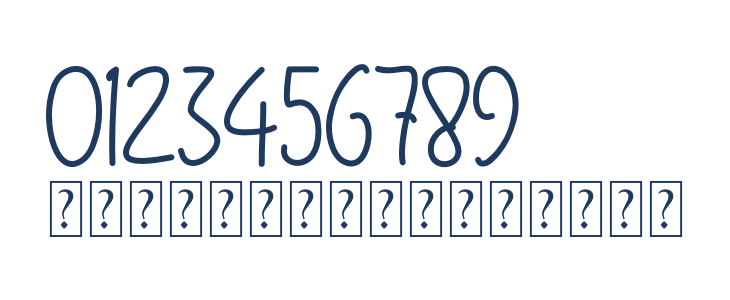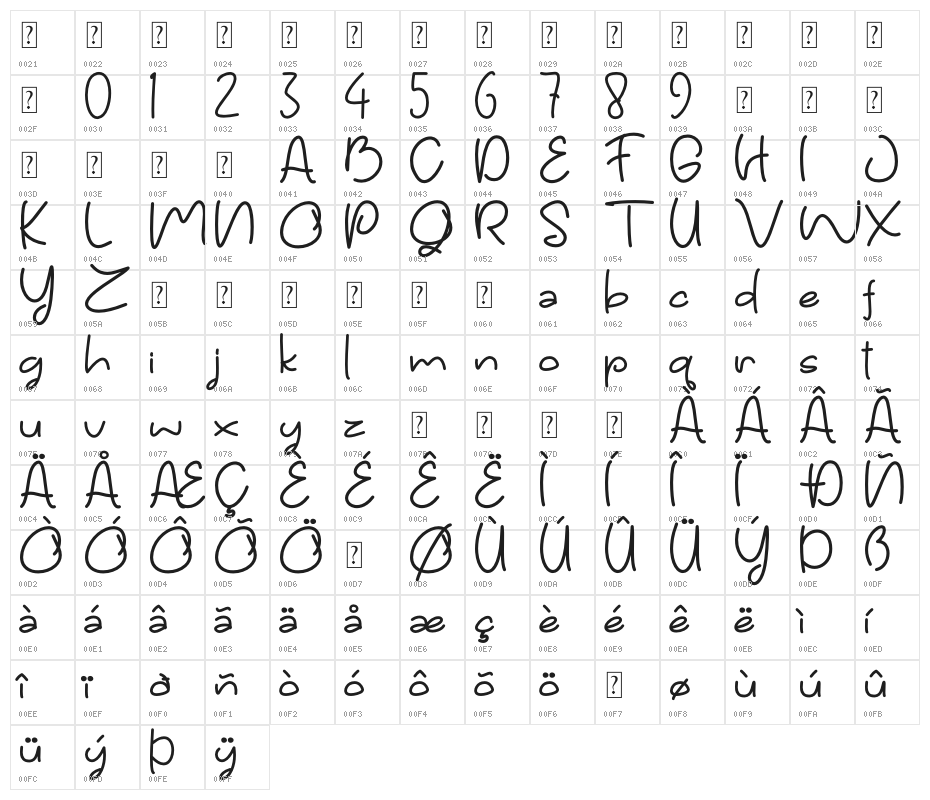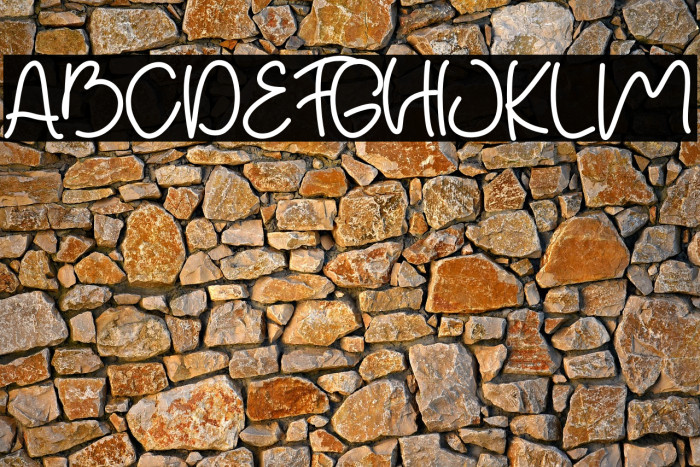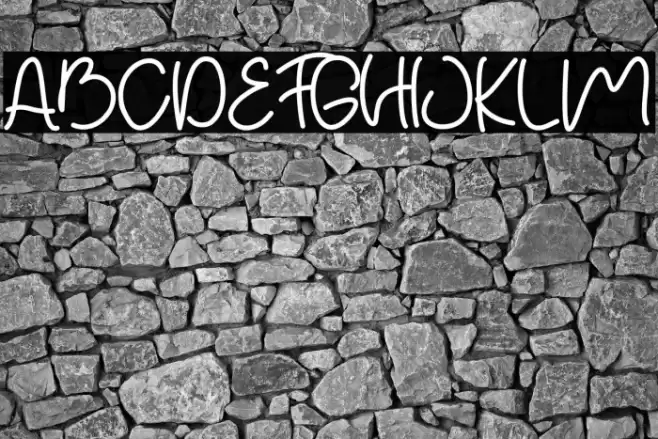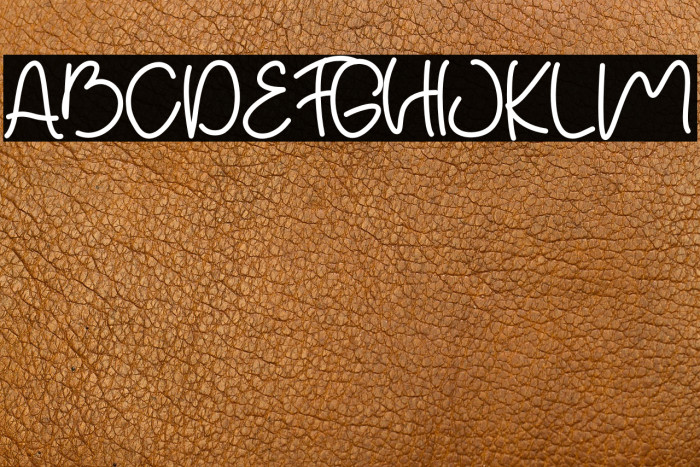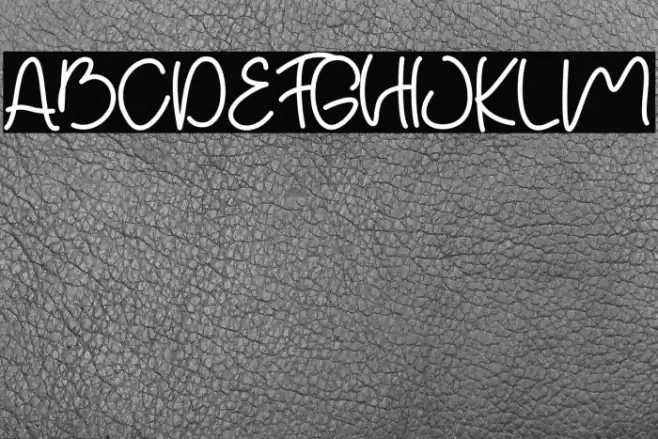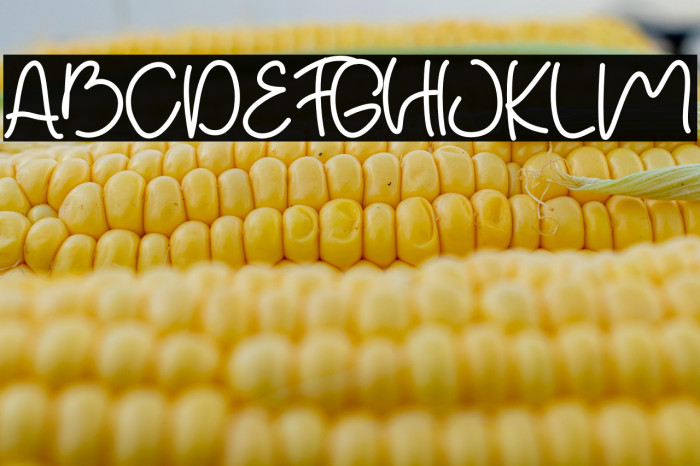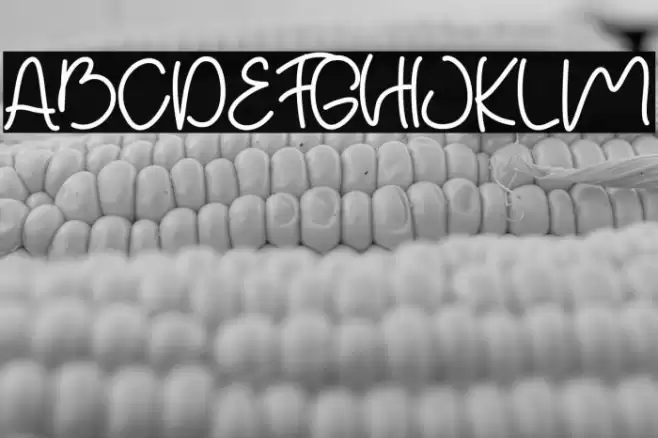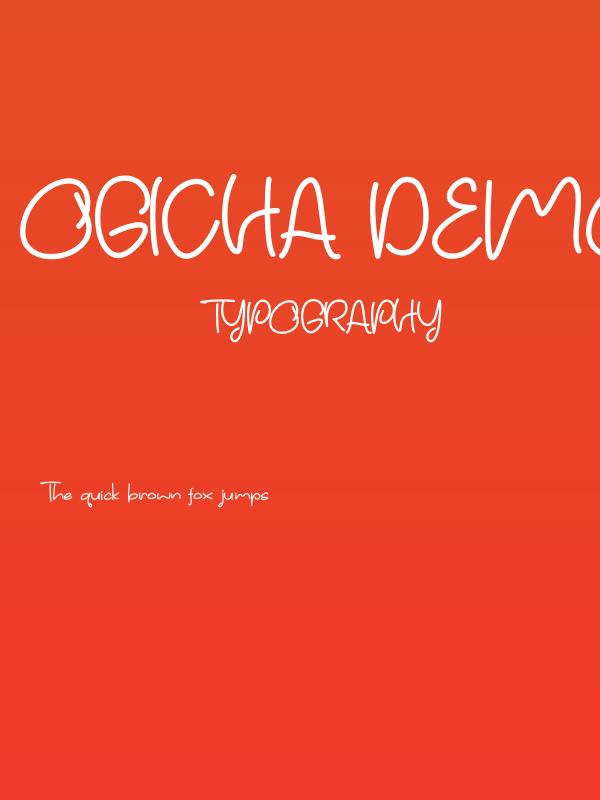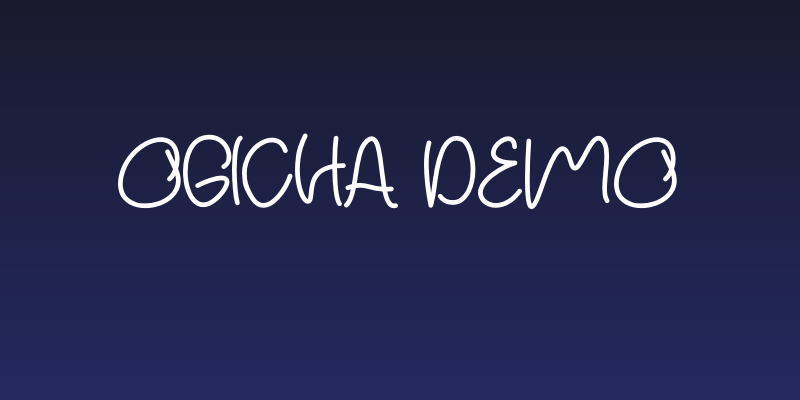
Ogicha DEMO Font
Ogicha DEMO Description
This playful and casual handwritten font features a smooth and flowing style, reminiscent of a personal note or a friendly letter. The letters are slightly slanted, giving a dynamic and lively feel. The strokes are consistent in width, providing a uniform appearance across all characters. The uppercase letters maintain a balance between formality and informality, while the lowercase letters exhibit a more relaxed and approachable demeanor. The numerals are clear and easy to read, matching the overall style of the alphabet. This font is versatile, suitable for projects that require a personal touch or a creative flair.
| Use Case | Headlines, Invitations, Personal notes |
| Proposed Projects | Ideal for greeting cards, invitations, personal branding, and creative projects. |